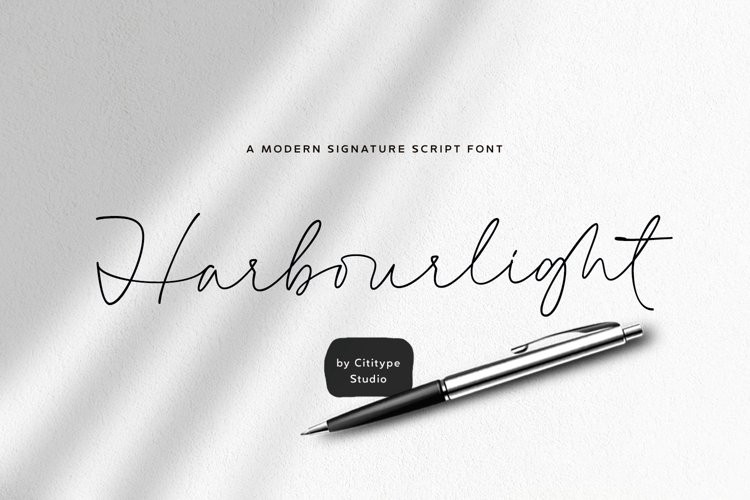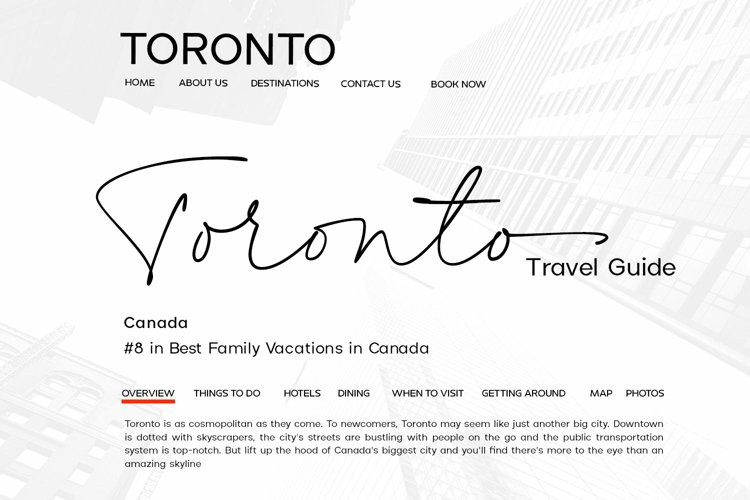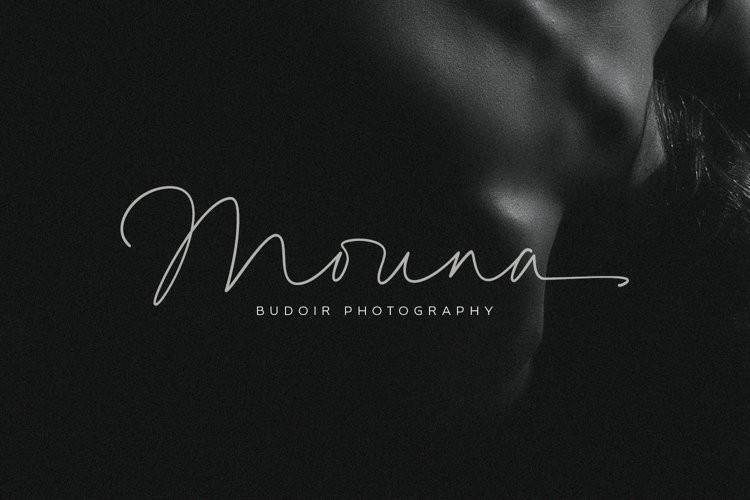
Harbourlight Font
Harbourlight FontHarbourligh is a monoline script font. designed for those of you who are needing a touch of clean monoline handwritten Font.
Resembling the typical line of a casual rollerpen and equipped with a lot of stunning ligature make it more naturals, assertive and appear more stand out for modern brands.
The swas line is a straight line at the beginning and end to emphasize a strong decision in the signature.
this font is a great choice for digital signature, logo, book cover, web site, brand identity, wedding invitation, photography, movie title and other modern brand.